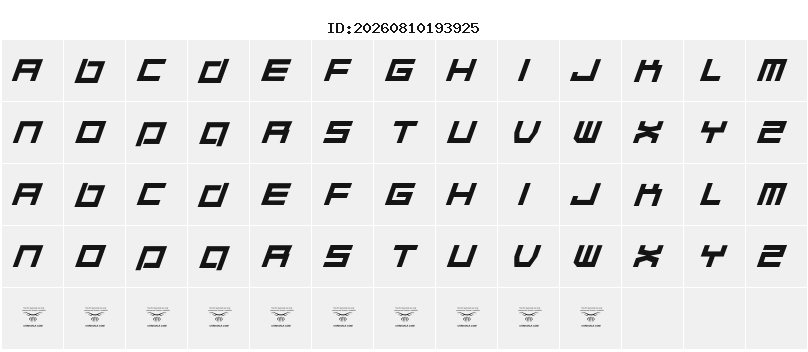
• Font Name: Quaalude hulk
• Full Font Name: Quaalude hulk Italic
• Designer: Chris Vile
• Manufacturer: Font Monger
• Description: Quaalude hulk Italic is a font by Font Monger, designed by Chris Vile in 2015.
About Quaalude hulk.ttf
Quaalude hulk.ttf is a modern, elegant sans-serif font designed for ultimate readability and visual harmony. Perfect for branding, headlines, web design, and print materials.